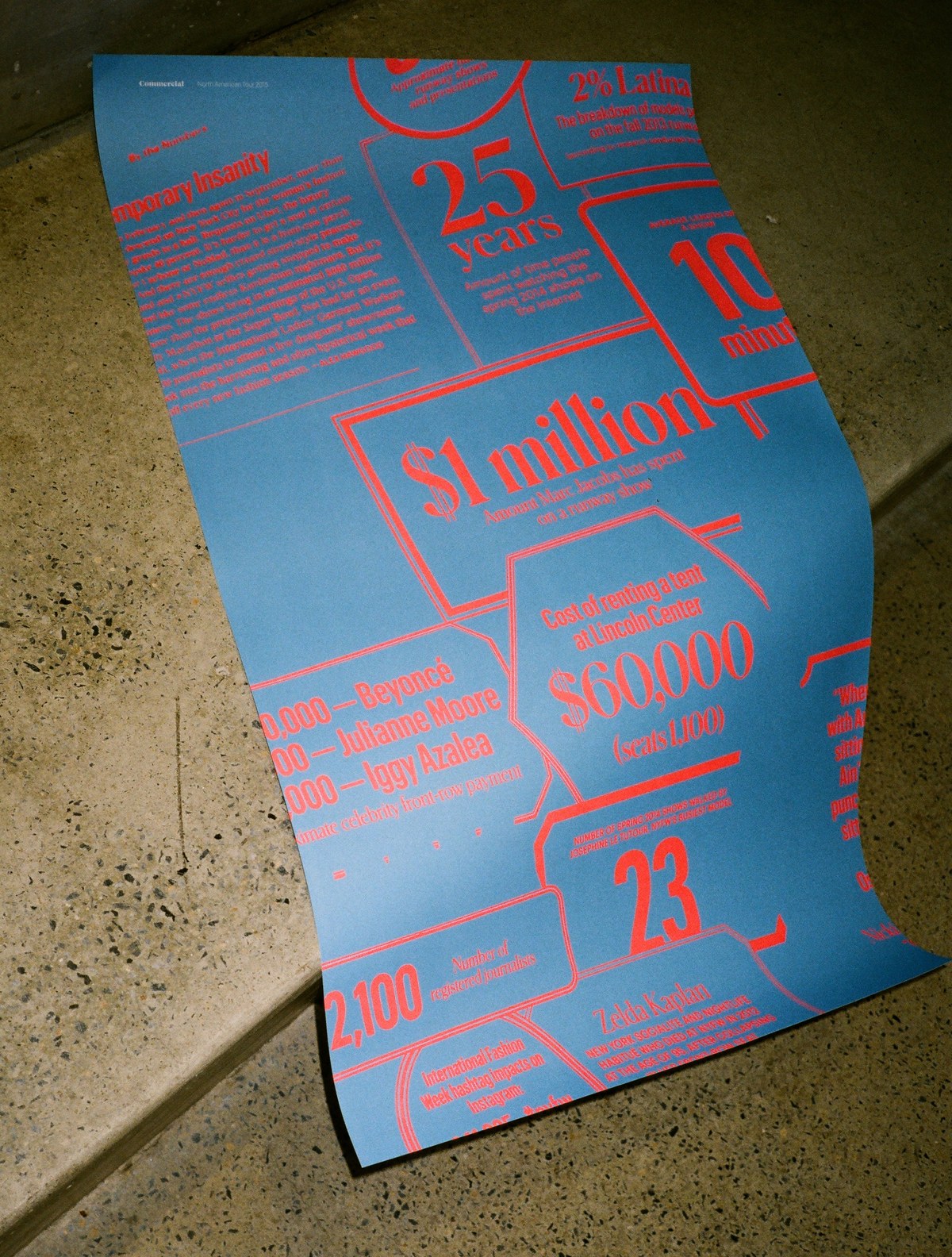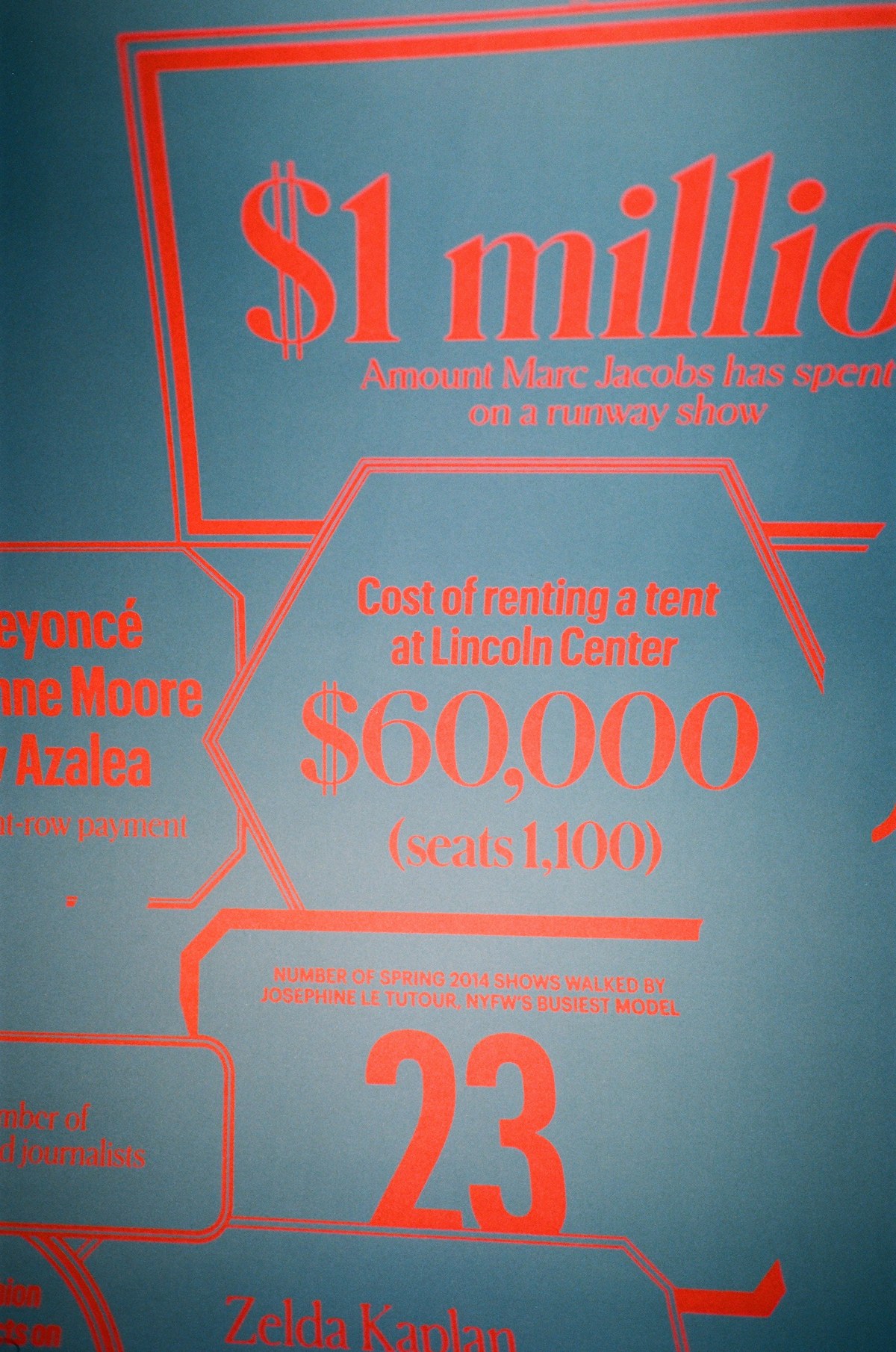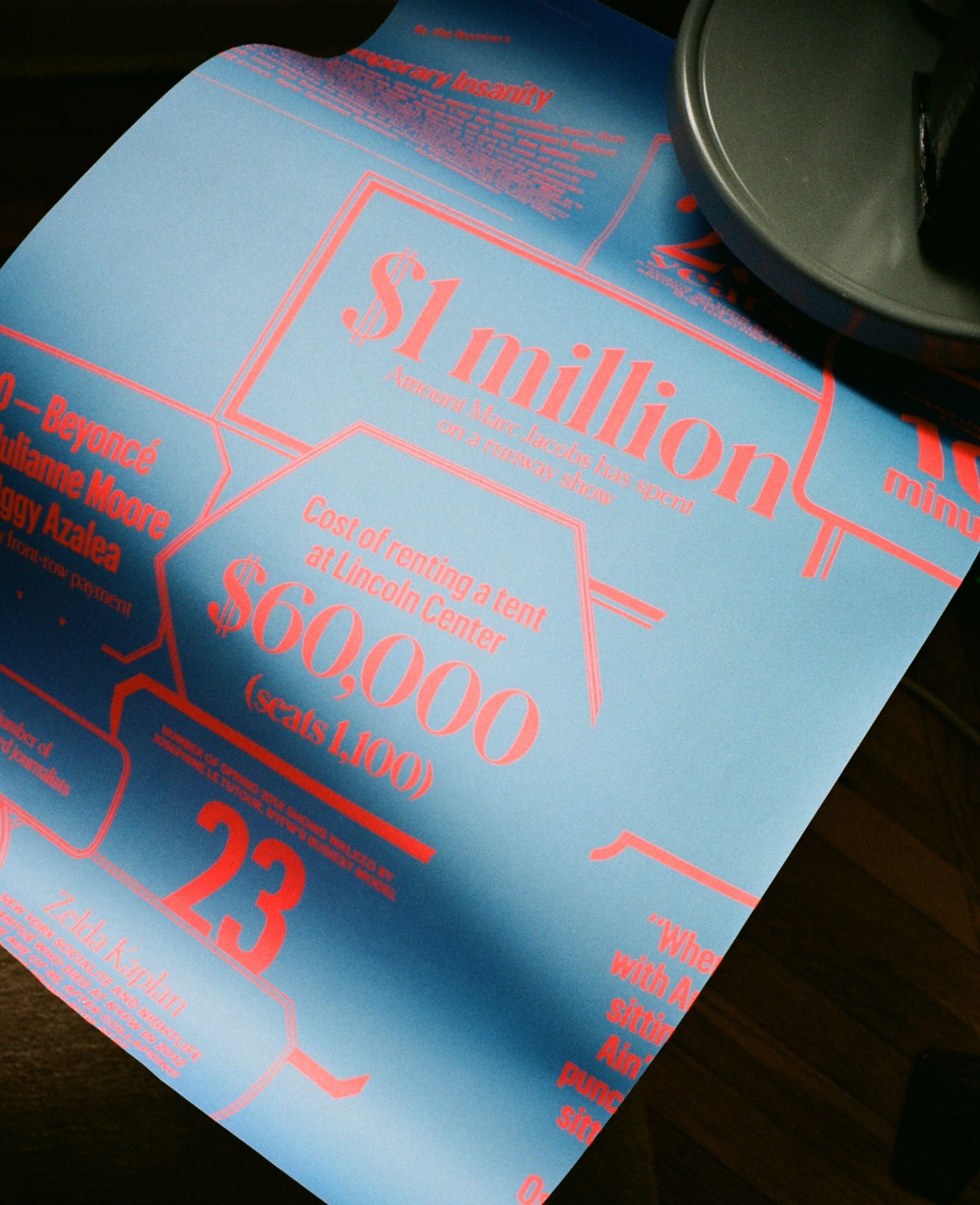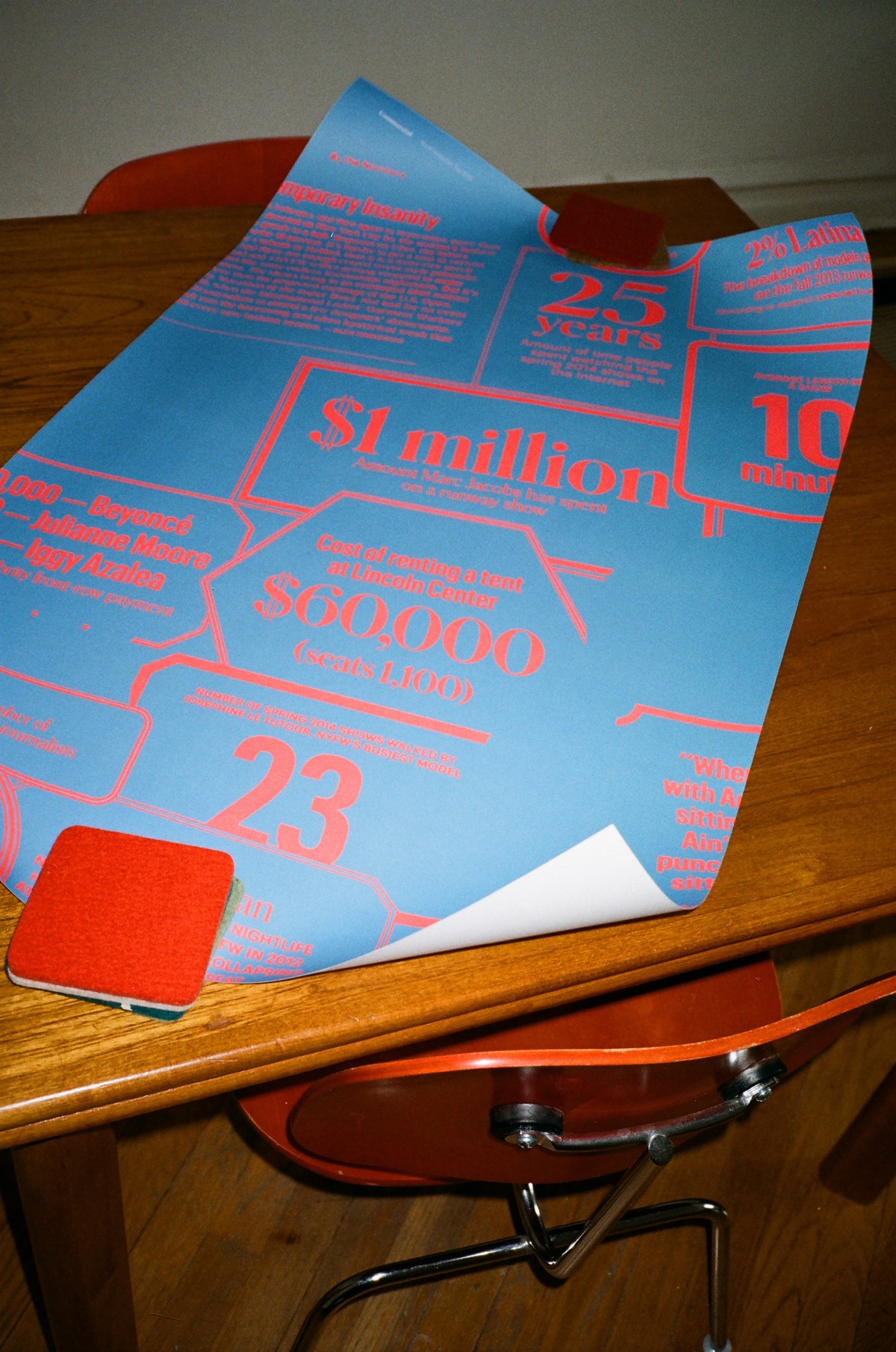
2015 North American Tour Poster
Designed by Project Projects
Designed by Project Projects for our 2015 North American tour, this poster doubled as the press sheet for the specimen jackets. The image is a photograph of a page from T, the New York Times Style Magazine using Schnyder and Graphik X Condensed, manipulated to remove all imagery and printed in a spot blue and a flourescent red.